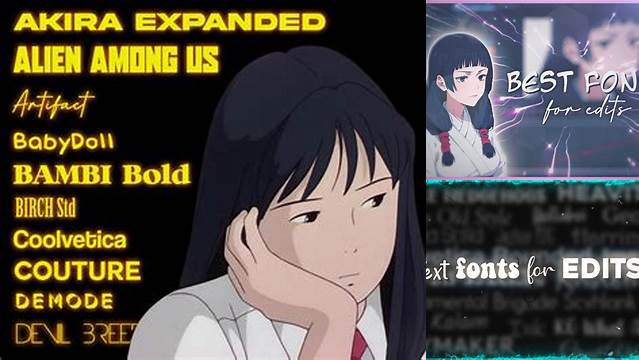
Best Fonts For Stunning AMV Edits
Alright guys, let's dive into the awesome world of fonts for AMV edits! Choosing the right font can seriously elevate your AMV, transforming it from good to absolutely captivating. It's like the secret sauce, the cherry on top, the chef's kiss of video editing. We're talking about fonts that not only look cool but also perfectly complement your chosen anime, music, and overall vibe. Get ready to level up your editing game with these font tips and recommendations!
1. Understanding Font Styles for Your AMV
First things first, you gotta understand the different font styles. Think of it like picking outfits; you wouldn't wear a tuxedo to the beach, right? Same principle applies to fonts for AMV edits. You have your serif fonts (think Times New Roman), which have those little lines at the ends of the letters. They can look classy and traditional, but maybe not the best for a high-energy AMV. Then, you have your sans-serif fonts (like Arial or Helvetica), which are clean, modern, and super versatile. They work great for a wide range of AMVs. There are also script fonts, which mimic handwriting and add a personal touch, and display fonts, which are more decorative and attention-grabbing. Selecting the right font style is crucial for setting the mood and atmosphere of your AMV. Consider your video’s style – is it a fast-paced action sequence, a melancholic drama, or a lighthearted comedy? The font style should resonate with the type of anime you're editing and the music you're using. For example, for a thrilling action-packed AMV, bold sans-serif fonts or futuristic display fonts can add impact. If the AMV is more emotional, a softer sans-serif or a delicate script font might be better. It's a balancing act, and the key is to align the text aesthetics with your video's overall tone. Experiment with these styles and see what resonates with your editing style.
1.1. Serif vs. Sans-Serif: Choosing the Right Look
The debate between serif and sans-serif fonts can be crucial when choosing fonts for AMV edits. Serif fonts, with their elegant flourishes, evoke a sense of tradition and sophistication. Think of them as the classic suit-and-tie option for your video. They work well in scenes requiring a more formal or historical aesthetic. They can add an interesting contrast, especially if the rest of your AMV is fast-paced. However, be cautious, as too many serifs can clutter up the screen, especially in fast-moving action sequences. On the other hand, sans-serif fonts are modern, clean, and easy to read. They lack the decorative serifs, making them highly versatile and less distracting. This makes them perfect for conveying information quickly and effectively in AMVs. They are ideal for displaying lyrics, names, or subtitles, where clarity is paramount. Consider the context: are you emphasizing a modern, futuristic theme? Sans-serif fonts would be the go-to choice. Your decision should be guided by what best enhances your video's impact, keeping in mind legibility and the overall thematic cohesion. Experimentation is the key; try both types in test edits to see which one aligns more harmoniously with your vision.
1.2. Script and Decorative Fonts: When to Use Them
Script and decorative fonts can add a unique flair to your AMV. However, when selecting fonts for AMV edits, it's important to know when and how to use them effectively. Script fonts, which imitate handwriting, bring a personal and intimate touch to your videos. They’re perfect for romantic scenes, introspective moments, or when you want to create a feeling of authenticity. However, they can be difficult to read, especially at smaller sizes or with complex backgrounds. Ensure your script font is legible by pairing it with a contrasting background and using it sparingly. Decorative fonts are bolder, more eye-catching, and are designed to draw attention. These include fonts with unique shapes, patterns, or embellishments. They work great for title cards, transitions, or any place where you want to make a visual statement. Because of their complexity, use decorative fonts cautiously. Ensure they complement the video’s theme without overshadowing the content. Don't overuse them. Think of them as accent pieces in a well-composed image. Consider a balance between visual impact and readability, always. Test their visual performance by placing them over moving backgrounds and quickly reviewing the overall impression. Remember, the goal is to elevate the visual narrative of your AMV. These fonts can transform your edits if used with thoughtful application.
2. Top Font Recommendations for AMV Editors
Alright, now that we've covered the basics, let's talk about some specific fonts for AMV edits that are total game-changers. I'm gonna share some of my personal faves and some widely-used fonts in the editing community.
2.1. Popular Sans-Serif Fonts for Clean Aesthetics
For clean and modern AMV aesthetics, sans-serif fonts are your best friends. They are known for their readability and versatility. Here are some popular choices for your fonts for AMV edits: Arial is a classic and reliable font. It's pre-installed on most systems, so it’s a no-brainer if you're just starting out. It's clean, simple, and works well in almost any situation. Helvetica is another timeless choice that's incredibly versatile. Known for its excellent legibility, Helvetica ensures your text is clear and easy to read. It's great for subtitles, and any text where clarity is essential. Roboto is a modern font, widely used on Android devices and other platforms. It has a friendly and approachable feel, making it perfect for conveying information without being too imposing. Open Sans is another excellent option, optimized for readability on screens. It’s a great choice for longer text passages, especially if you want to maintain a clean, uncluttered look. Montserrat is a geometric sans-serif that’s become incredibly popular. It has a modern and stylish feel. It’s perfect for creating bold titles and eye-catching text overlays. Consider using these fonts in combination with different effects, colors, and backgrounds to see which best fits your AMV style. The key here is to choose fonts that are both easy to read and match the overall aesthetic of your video, providing the ultimate visual impact. Experiment to see which one suits you best.
2.2. Bold and Impactful Fonts for Action-Packed AMVs
When it comes to action-packed AMVs, you need fonts for AMV edits that grab the viewer's attention. They need to be bold, dynamic, and convey a sense of urgency and energy. Impact is a popular choice for a reason. It's thick, bold, and commands attention immediately. Perfect for titles, opening sequences, and any moment where you want to create a strong visual impact. Bebas Neue is a sans-serif font with a clean, condensed design. It's perfect for titles and headings that require a strong presence without being too bulky. League Gothic is a tall, condensed sans-serif. It adds a sense of power and height. Ideal for highlighting intense moments or character introductions. Anton is a bold, condensed font designed for display use. It’s strong and impactful and stands out well, especially against busy backgrounds. Oswald is a neo-grotesque sans-serif that offers a strong visual impact. Use these fonts strategically. Combine them with effects like glows, outlines, and motion to further amplify their impact. Experiment with colors and animations to find the right balance. These bold fonts will turn heads and add a professional sheen to any AMV.
2.3. Elegant and Stylish Fonts for Emotional AMVs
For emotional AMVs, the right fonts can enhance the storytelling and evoke the desired feelings. When choosing fonts for AMV edits, consider fonts that have a softer, more delicate aesthetic. Raleway is a stylish sans-serif font with a clean and modern feel. It's versatile enough for both titles and body text. Its balance between elegance and readability makes it ideal for emotional scenes. Lato is a warm, friendly sans-serif that's easy on the eyes. It's perfect for creating a sense of empathy and warmth in your videos. Playfair Display is a high-contrast serif font, which is great for titles and headings. Its classic design makes it an excellent choice for adding an elegant touch. Dancing Script is a script font with a playful and elegant style. It can add a personal and heartfelt feel to your edits, especially when used for quotes or intimate moments. Great Vibes is another elegant script font, designed to bring a touch of grace and sophistication to your projects. Always consider how the font complements the visuals and music of your video. The perfect font should highlight the emotions in your edit. Test these fonts on various backgrounds and with different effects to determine the most suitable choice for your AMV.
3. Font Pairing Tips for Stunning Visuals
Choosing the right fonts for AMV edits isn't just about picking a single font. It's about how well different fonts work together. It's like a relationship, right? You want fonts that complement each other, not fight for attention. Here are some tips to make your AMV look super professional.
3.1. Combining Sans-Serif and Serif Fonts for Balance
A good technique to use in fonts for AMV edits is combining sans-serif and serif fonts to create balance. This combination offers a contrast that can significantly enhance the visual appeal of your edits. Use a clean sans-serif for titles or headings to provide a modern, clear look. Then, you can pair it with a serif font for body text, which adds a touch of elegance and sophistication. For example, you might use a sans-serif font like Roboto for the title and a serif font like Playfair Display for subtitles or credits. The key is to choose fonts that share similar qualities or a harmonious relationship. Ensure your sans-serif and serif fonts don't clash with each other. Make sure the contrast is intentional and enhances readability. This is a powerful way to create layers of visual interest within your video. The balance will make your AMV appear more polished and visually engaging. Experiment with different font pairings to find what works best with your style.
3.2. Font Pairing Rules: Matching and Contrasting
Mastering font pairings is a crucial step for beautiful fonts for AMV edits. There are a few basic rules to keep in mind. Matching: Choosing two fonts of the same style can create a sense of unity. However, you might end up with a result that's too homogenous. Make sure there’s enough difference in weight or style to provide a clear distinction. Contrasting: Mixing fonts with different styles will create an interesting visual tension. Pair a modern sans-serif with a classic serif or a bold font with a thin one. The contrast should always support readability and visual hierarchy. Choosing Families: Select fonts from the same typeface family. These fonts are designed to work well together. This allows for an easy way to create a cohesive look. The goal is to create visual harmony, guiding viewers through your AMV smoothly. Make use of these rules and techniques to give your video a professional aesthetic.
3.3. Avoiding Font Clashes: Common Mistakes
Avoid common font pairing mistakes to give a visual impact to your fonts for AMV edits. One common mistake is using fonts that are too similar. Using two nearly identical fonts creates an illusion of an oversight and hinders the viewers’ ability to process information. On the other hand, you might end up with a clash if the fonts are too different. The visual dissonance can be distracting and hard to follow. Remember, it's about balance. Never use too many fonts. Limit your AMV to a maximum of three different fonts. Too many styles can make your video look cluttered. Poor readability is another problem. Use fonts that are clear and easy to read. Overly decorative fonts can be challenging to understand. This is especially crucial when the text is overlaid on a moving background. Test your font pairings. Preview the fonts to ensure they work well together. Always check the visual appeal. Avoid creating font clashes by implementing these techniques to enhance the overall design of your AMV.
4. Customizing Fonts for Your AMV
Now, let's talk about taking your fonts for AMV edits to the next level. Knowing how to customize your fonts can make your AMV super unique and distinct from the crowd. Customization lets you add your own personal touch.
4.1. Adjusting Font Size and Kerning for Readability
Adjusting font size and kerning is essential for the usability of your fonts for AMV edits. Font size is the most straightforward. Make sure it is large enough to be easily read, but not so large that it overwhelms the screen. Kerning refers to the space between individual letters. Proper kerning ensures that the text is clear and easy to read. Adjust kerning to compensate for letters that are too close together or too far apart. This will make your text look more balanced and aesthetically pleasing. When customizing font size, consider the screen size and the viewing distance. For titles and subtitles, larger sizes might be appropriate. For longer texts, smaller sizes with good kerning can improve readability. Always test your text on different backgrounds and under various viewing conditions. Perfecting the font size and kerning will improve the visual appearance of your AMV.
4.2. Using Color and Effects to Enhance Fonts
Colors and effects can enhance your fonts for AMV edits. Color is a great way to make your text stand out and complement the visuals of your AMV. Use contrasting colors to make your text more visible against the background. The choice of color should align with your AMV's theme and overall mood. Effects like outlines, shadows, and glows can dramatically enhance the impact of your text. Outlines can make the text stand out more against busy backgrounds. Shadows add depth and dimension, while glows can create a futuristic or ethereal look. Don't overdo the effects. Keep the effects subtle so that they enhance, and not distract. Always consider the overall color palette of your AMV. Make sure your color choices complement and improve the video. Combining color and effects is an effective way to take your AMV to the next level.
4.3. Adding Animations and Motion to Text
Adding animations and motion to text will make your fonts for AMV edits dynamic and engaging. Animated text can capture attention and bring your AMV to life. This is also a great way to underscore key moments. There are different ways to add animations. Fade-ins and fade-outs are a simple yet effective way to introduce text. Slide-ins and slide-outs create a sense of movement. Other animations include zoom-ins, shake effects, and even text that follows a path. Choose animations that are in line with your video's theme and energy. Use animations strategically, avoiding overuse to keep the viewers interested. Combine text animations with sound effects to make a great impression. A well-animated text can make your AMV more impactful and memorable.
5. Where to Find Free Fonts for Your AMV Edits
Alright, now let's talk about where to find those amazing fonts for AMV edits without spending a fortune. Free fonts are your best friend! There are tons of websites that offer high-quality fonts at no cost. Here are some of my favorite spots to hunt down some fonts.
5.1. Top Websites for Free Font Downloads
Looking for free fonts for AMV edits? Several websites offer amazing fonts without any cost! Google Fonts is a fantastic resource. It has a vast collection of fonts that are easy to download and use. The site is user-friendly. You can browse by category and filter fonts based on their style, weight, and other characteristics. DaFont is another popular choice. It offers a huge variety of fonts, which are often categorized by style. It has a simple interface that allows you to quickly find the style you want. Remember to check the license before using any font from DaFont, as some may require attribution. Font Squirrel offers curated fonts, many of which are free for commercial use. They also offer a font identifier tool, which is handy if you want to identify a font from an image. Always make sure to read the license agreements for each font to understand how you can use them. Always check for attribution requirements to respect the work of the font designers. Using these websites, you'll have plenty of options to make your AMVs look their best.
5.2. Understanding Font Licenses: Free vs. Commercial Use
When you download fonts for AMV edits, you have to understand font licenses. It's crucial to know the difference between free and commercial use. Free Fonts are available to use without charge. These fonts are often available for personal use. Some free fonts permit commercial use, too, but this may require giving the creator credit. Always review the license to see if you have to provide attribution or adhere to other requirements. Commercial use allows you to use the font in projects that will be distributed. It is important to comply with the license. If you're making money from your AMV, you'll have to ensure your chosen fonts support commercial use. Check the license carefully before using any font. Not all free fonts are created equal. Some might have restrictions. Respecting the license protects the font designer’s work and keeps you from any legal issues.